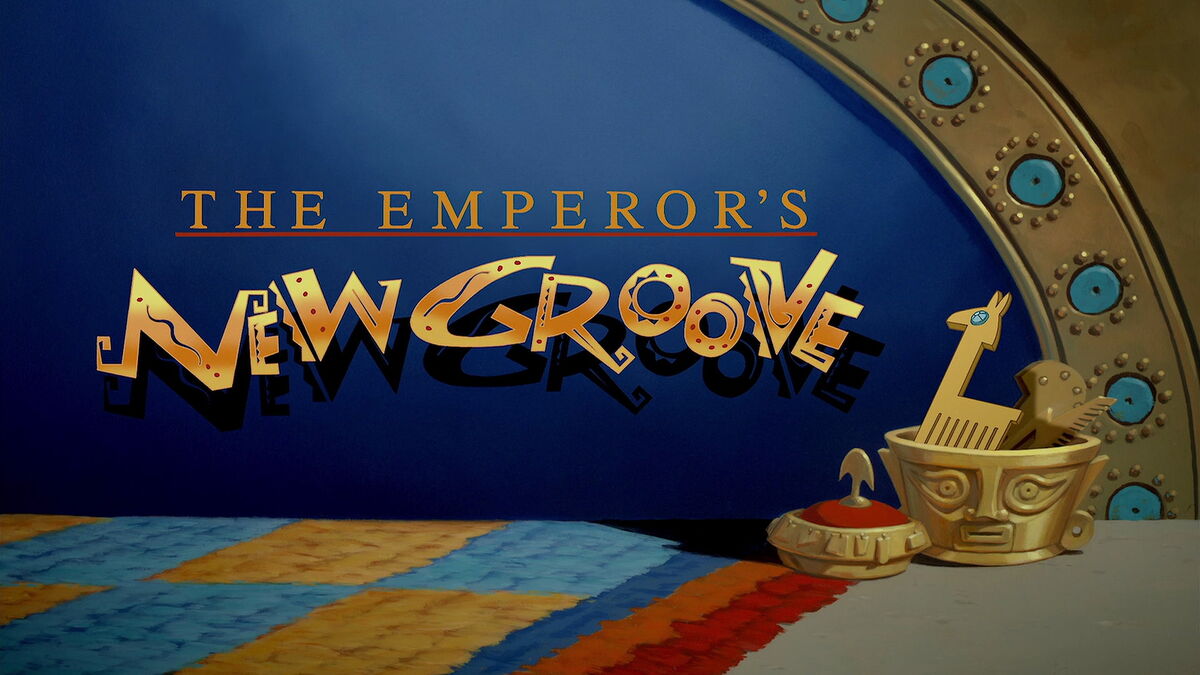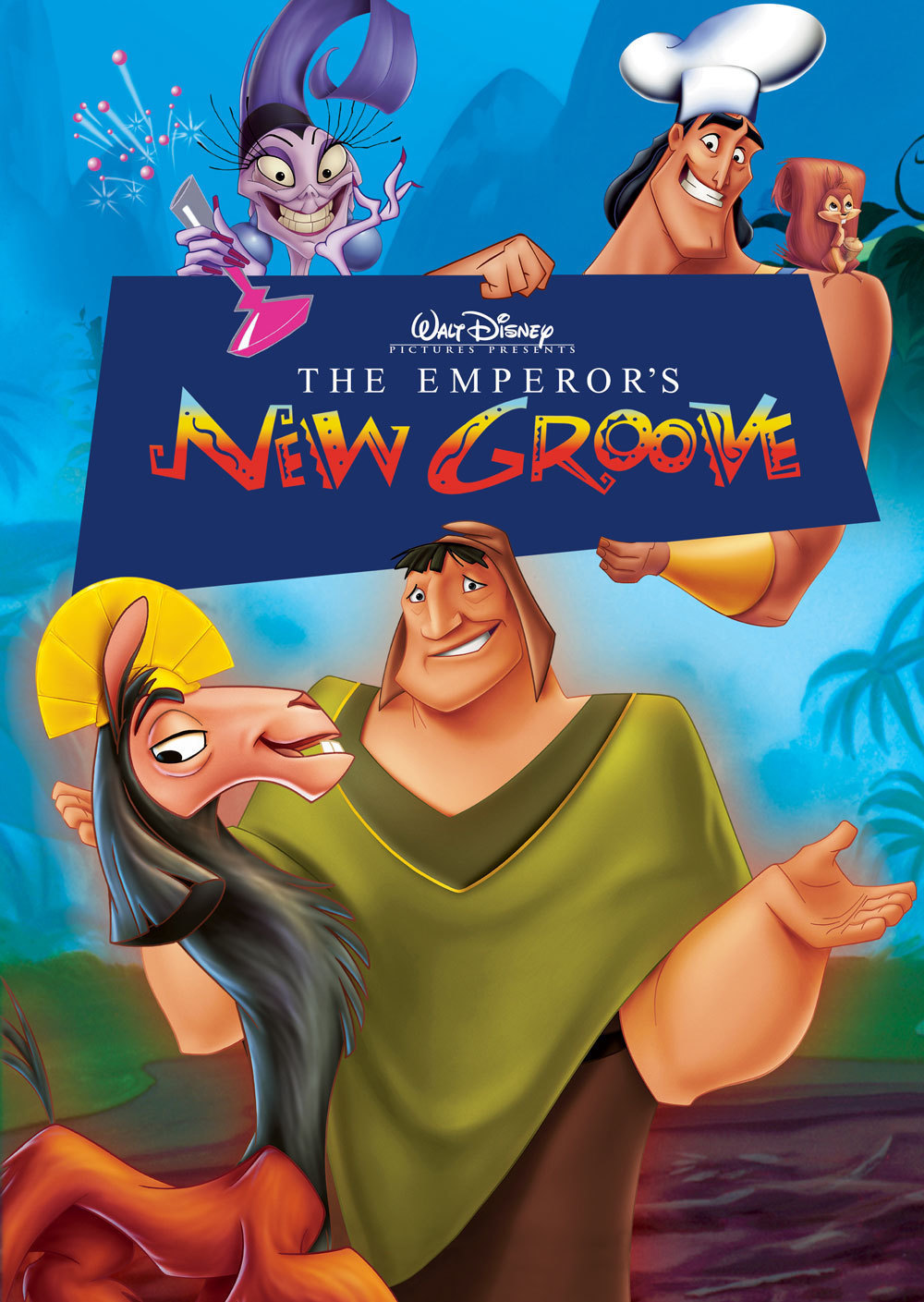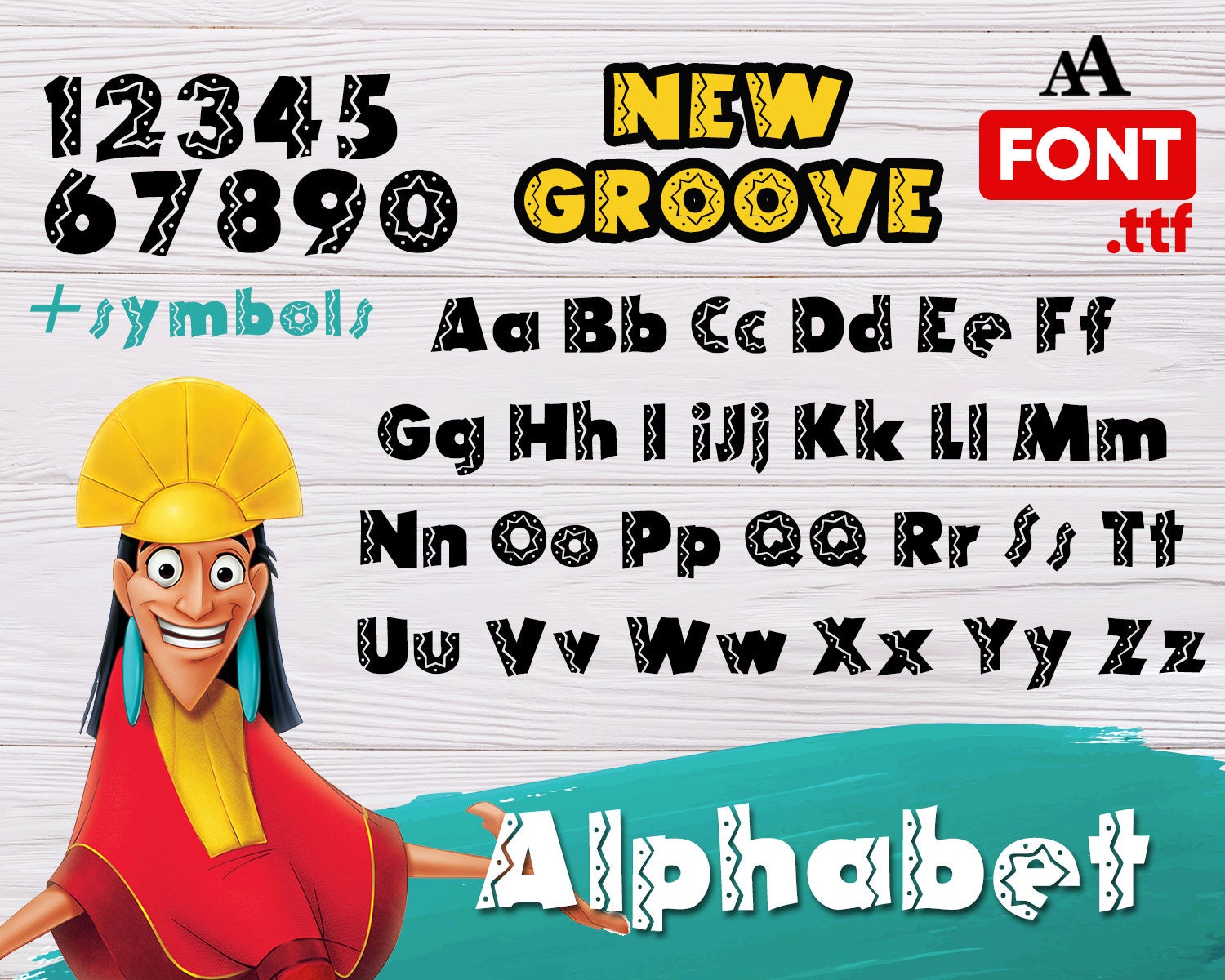
Emperors New Groove Font
Emperors New Groove Font - Browse by alphabetical listing, by style, by author or by popularity. Web archive of freely downloadable fonts. Web the emperor's new groove is a font created by plus channel. Web you can download the emperor’s new groove font from font sherlock. Web download the font named las locuras del emperador based on the 2000 disney animated comedy film the emperor’s new. The site will redirect you to the. Web based on disney's the emperor's new groove.
Web archive of freely downloadable fonts. Web download the font named las locuras del emperador based on the 2000 disney animated comedy film the emperor’s new. Web you can download the emperor’s new groove font from font sherlock. Browse by alphabetical listing, by style, by author or by popularity. Web based on disney's the emperor's new groove. The site will redirect you to the. Web the emperor's new groove is a font created by plus channel.
Web you can download the emperor’s new groove font from font sherlock. The site will redirect you to the. Web the emperor's new groove is a font created by plus channel. Web archive of freely downloadable fonts. Web based on disney's the emperor's new groove. Browse by alphabetical listing, by style, by author or by popularity. Web download the font named las locuras del emperador based on the 2000 disney animated comedy film the emperor’s new.
Browse by alphabetical listing, by style, by author or by popularity. Web you can download the emperor’s new groove font from font sherlock. The site will redirect you to the. Web archive of freely downloadable fonts. Web based on disney's the emperor's new groove.
Web the emperor's new groove is a font created by plus channel. Web archive of freely downloadable fonts. Browse by alphabetical listing, by style, by author or by popularity. Web download the font named las locuras del emperador based on the 2000 disney animated comedy film the emperor’s new. The site will redirect you to the.
The Emperor’s New Groove Font
Web the emperor's new groove is a font created by plus channel. The site will redirect you to the. Web based on disney's the emperor's new groove. Web you can download the emperor’s new groove font from font sherlock. Web archive of freely downloadable fonts.
Web you can download the emperor’s new groove font from font sherlock. Web the emperor's new groove is a font created by plus channel. The site will redirect you to the. Web archive of freely downloadable fonts. Browse by alphabetical listing, by style, by author or by popularity.
Web you can download the emperor’s new groove font from font sherlock. The site will redirect you to the. Web download the font named las locuras del emperador based on the 2000 disney animated comedy film the emperor’s new. Web the emperor's new groove is a font created by plus channel. Web archive of freely downloadable fonts.
Web archive of freely downloadable fonts. Web the emperor's new groove is a font created by plus channel. The site will redirect you to the. Web download the font named las locuras del emperador based on the 2000 disney animated comedy film the emperor’s new. Web you can download the emperor’s new groove font from font sherlock.
The site will redirect you to the. Web based on disney's the emperor's new groove. Web archive of freely downloadable fonts. Web you can download the emperor’s new groove font from font sherlock. Web the emperor's new groove is a font created by plus channel.
Browse by alphabetical listing, by style, by author or by popularity. Web based on disney's the emperor's new groove. Web you can download the emperor’s new groove font from font sherlock. Web archive of freely downloadable fonts. Web download the font named las locuras del emperador based on the 2000 disney animated comedy film the emperor’s new.
The site will redirect you to the. Web download the font named las locuras del emperador based on the 2000 disney animated comedy film the emperor’s new. Browse by alphabetical listing, by style, by author or by popularity. Web archive of freely downloadable fonts. Web the emperor's new groove is a font created by plus channel.
Web based on disney's the emperor's new groove. Web download the font named las locuras del emperador based on the 2000 disney animated comedy film the emperor’s new. Web archive of freely downloadable fonts. The site will redirect you to the. Browse by alphabetical listing, by style, by author or by popularity.
Web the emperor's new groove is a font created by plus channel. Web you can download the emperor’s new groove font from font sherlock. Web download the font named las locuras del emperador based on the 2000 disney animated comedy film the emperor’s new. Web based on disney's the emperor's new groove.